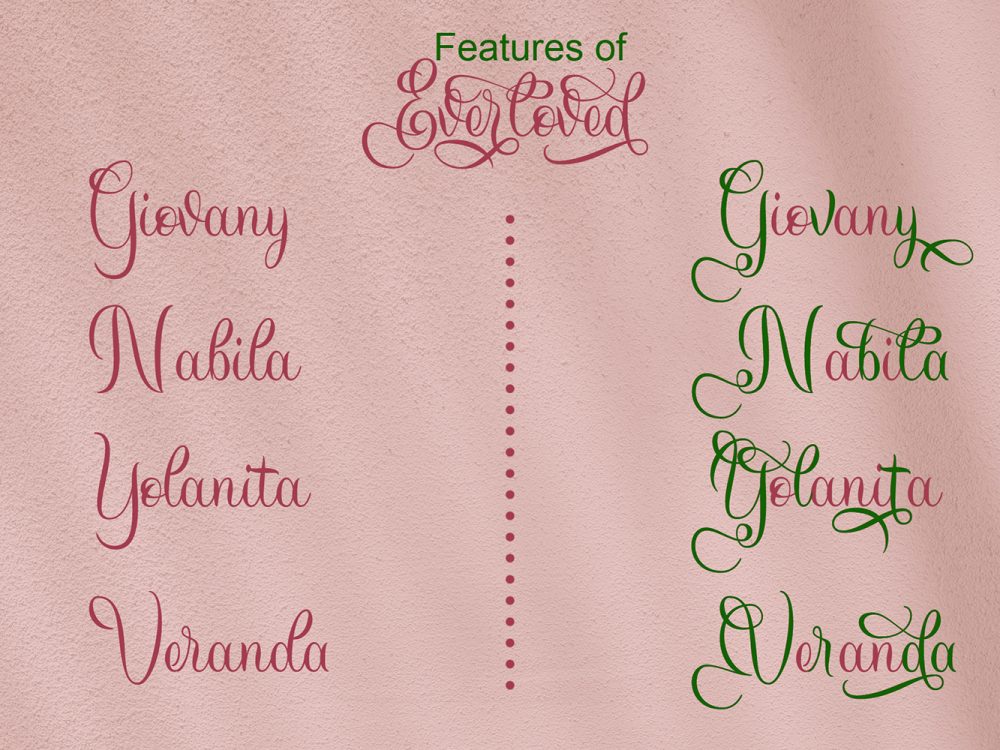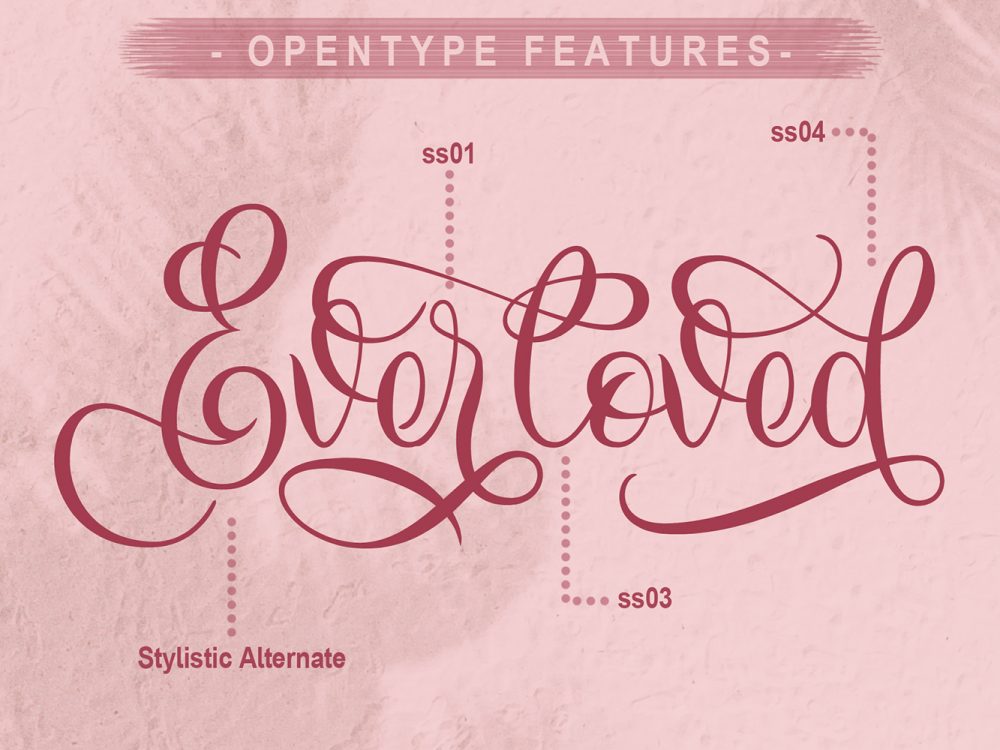
Everloved Free Font
Everloved Free Font is a modern script font that feels very elegant that features a modern calligraphic style among other fonts. Use Everloved Free Font to create memorable romantic posters, wedding invitations, greeting cards, branding, flyers, t-shirt and pillow prints, and more. If you like it don’t forget to check out the full version.